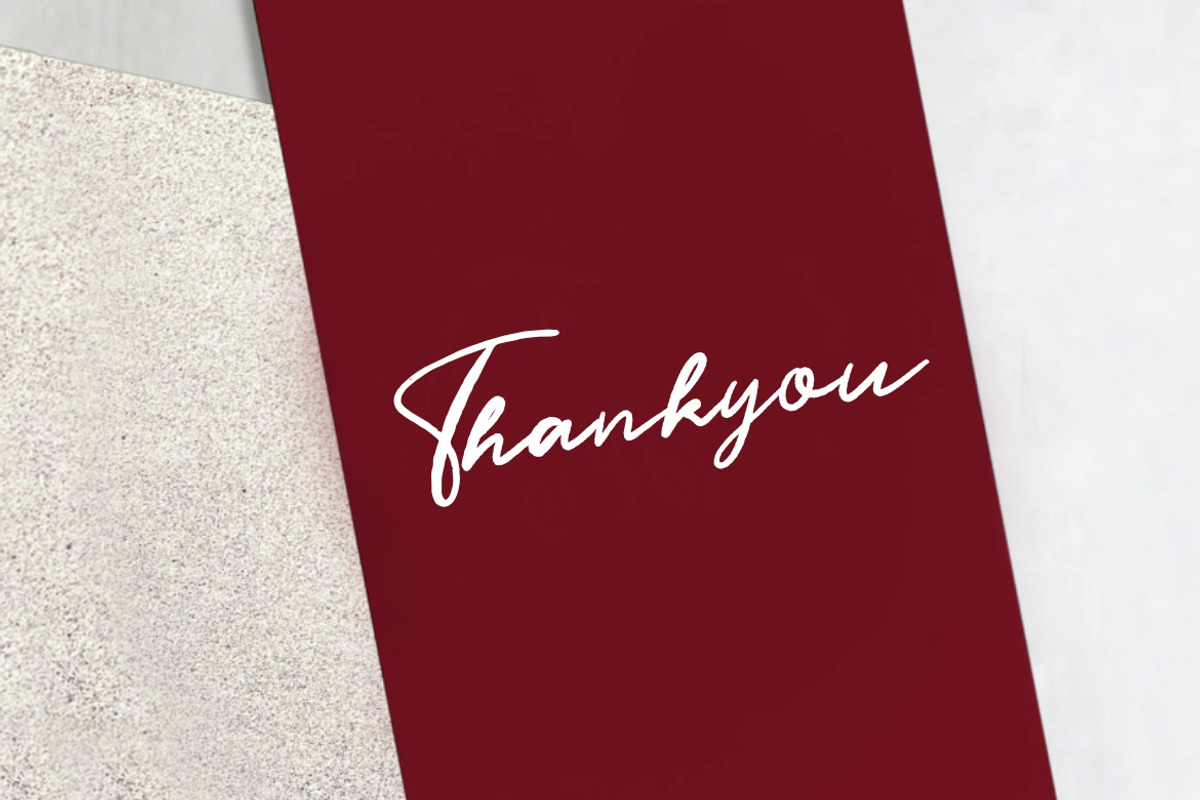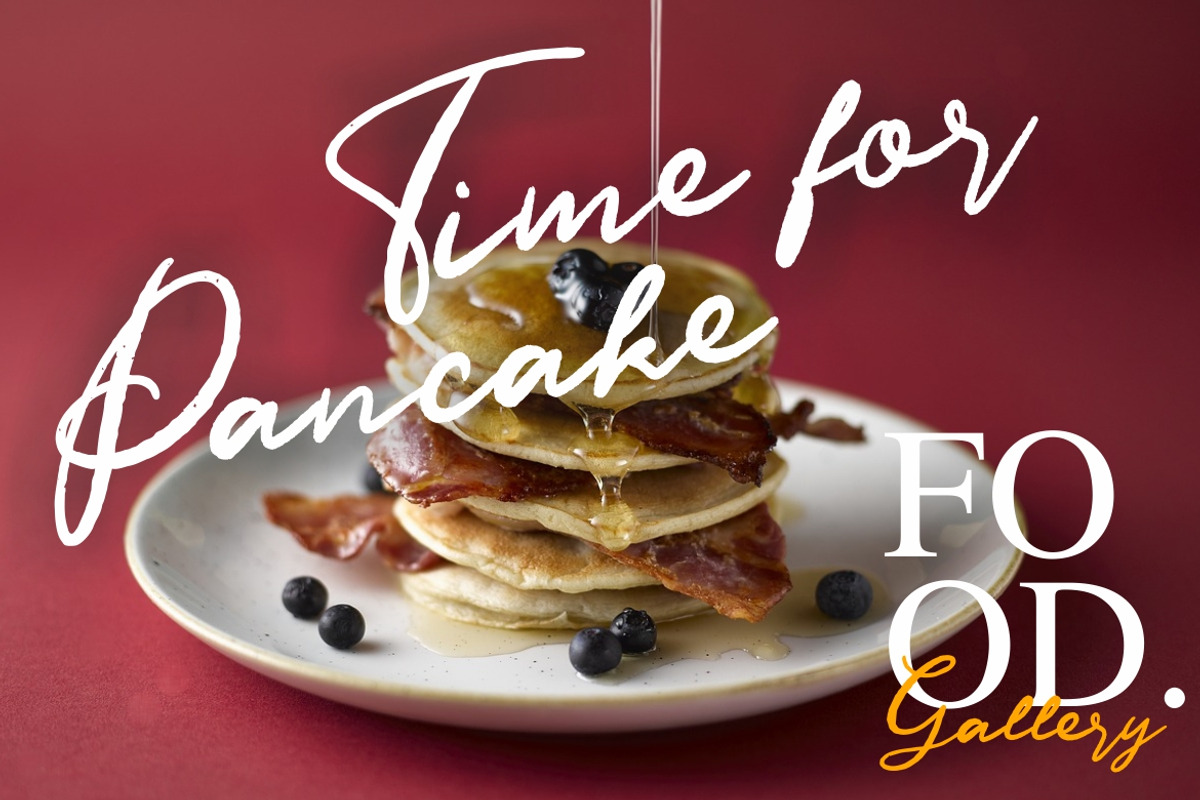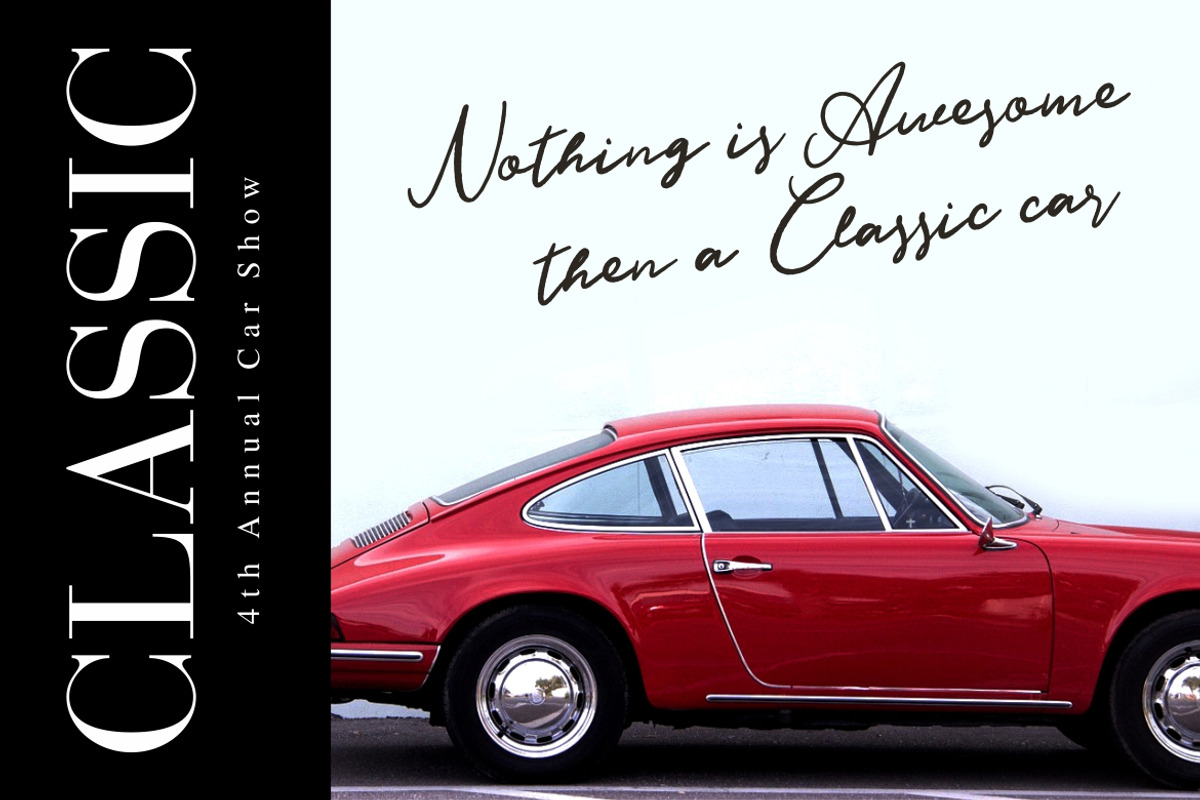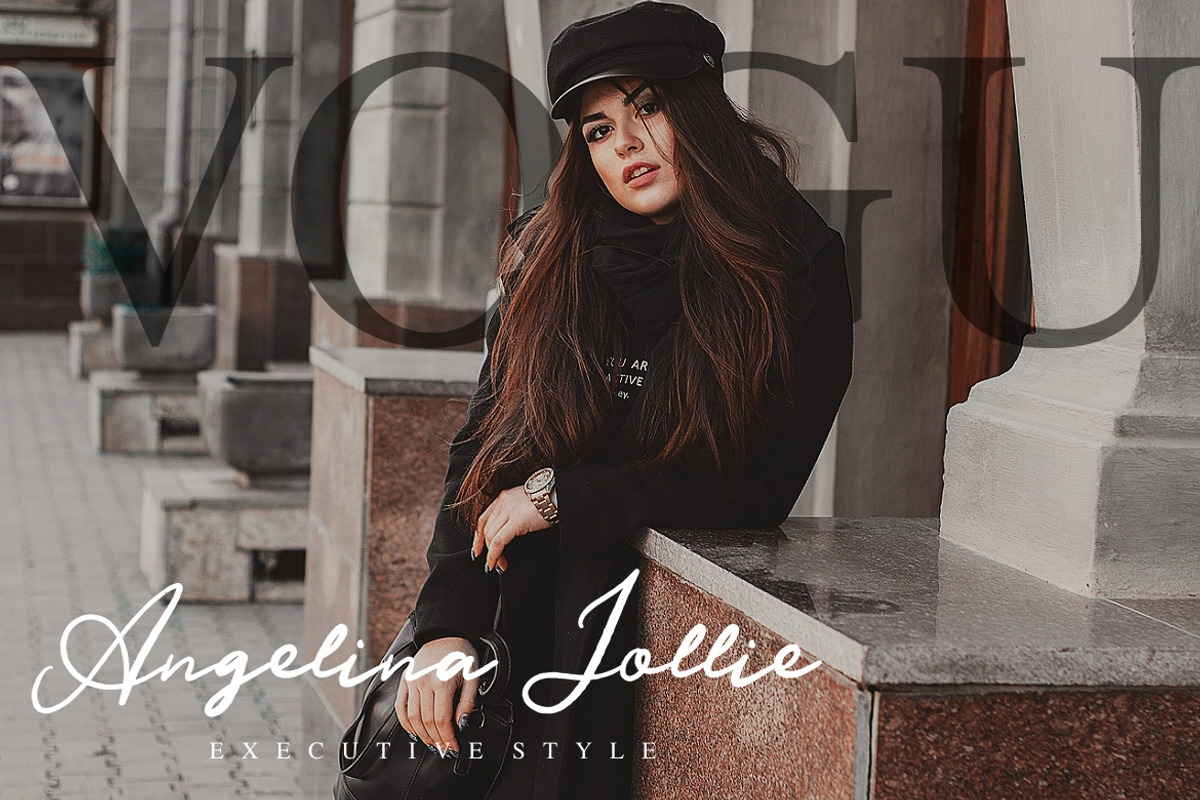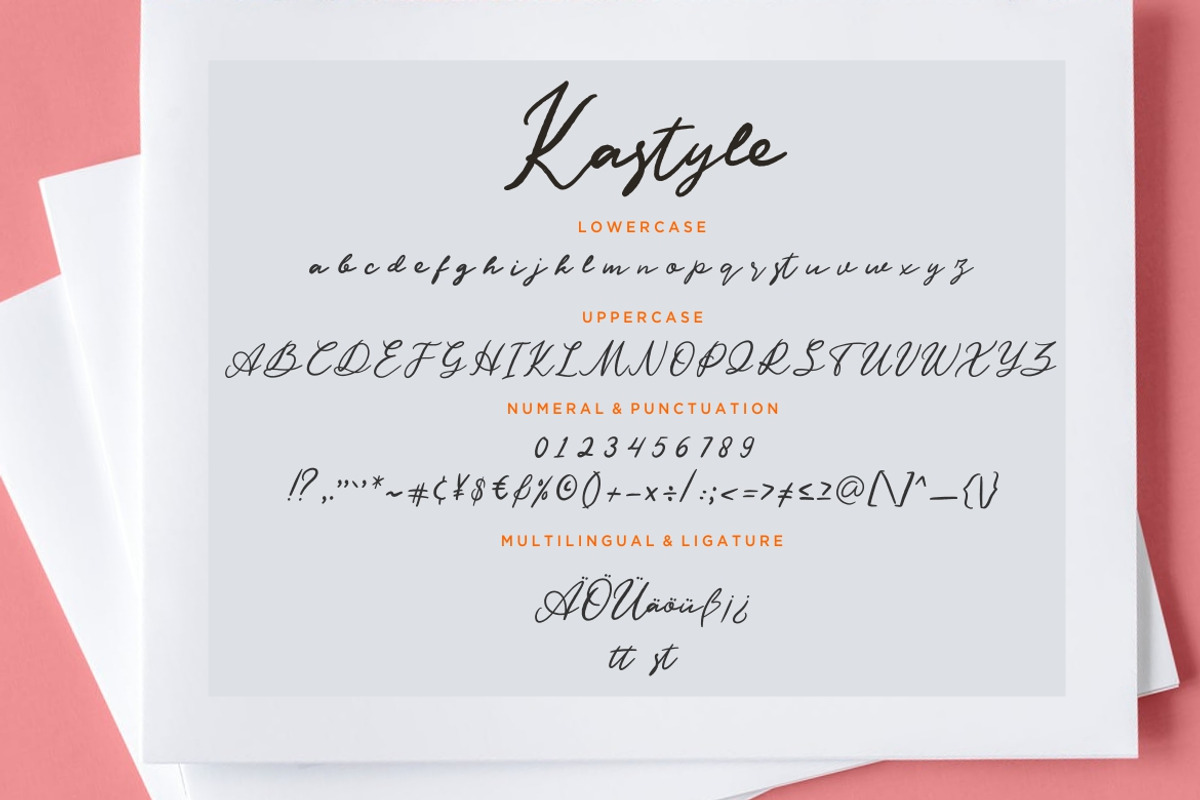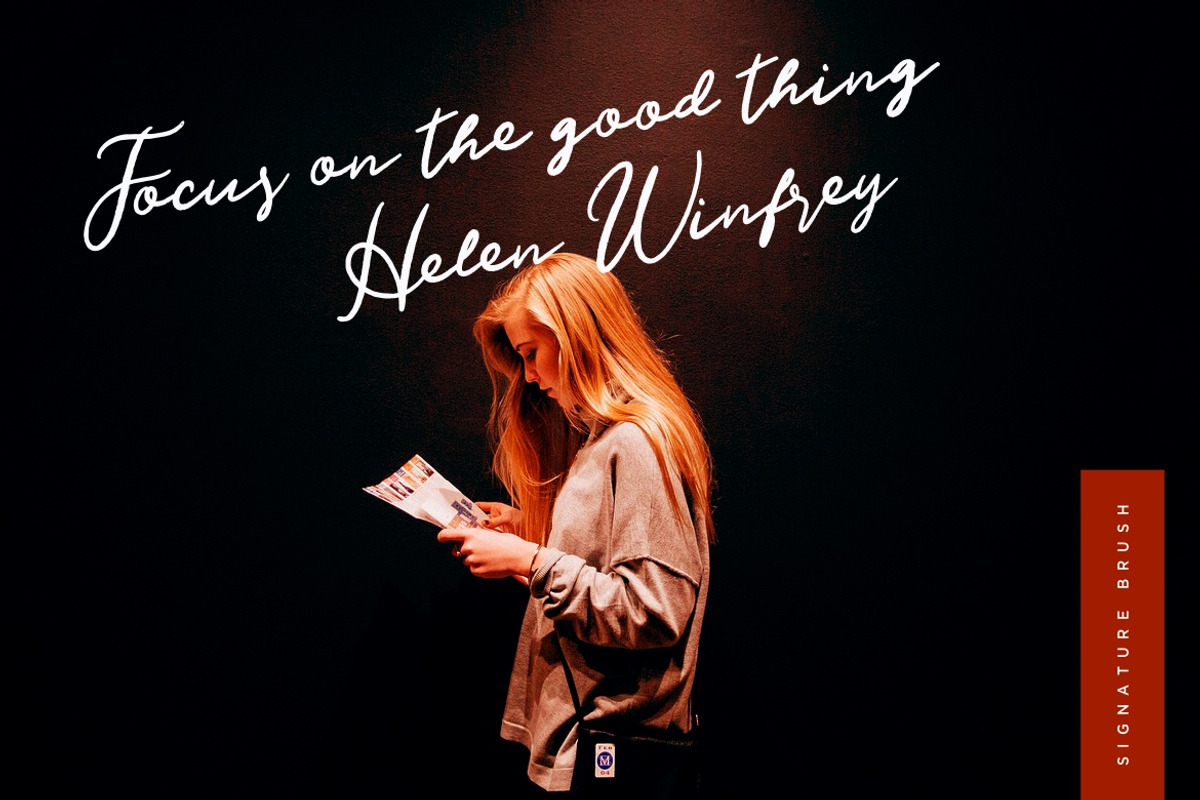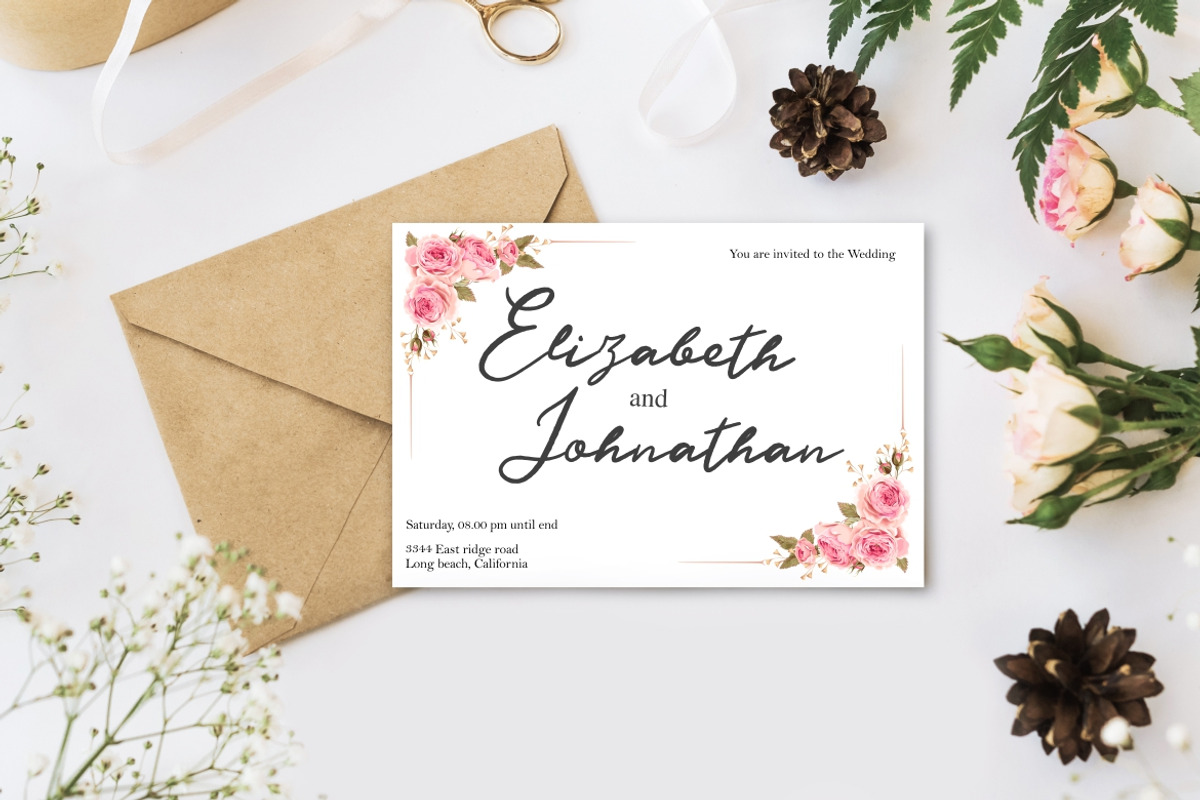
Kastyle Brush Business Font
Kastyle is signature script collection with brush touch make this font so awesome for your project.
Kastyle is perfect for branding projects, logo, wedding designs, social media posts, advertisements, product packaging, product designs, label, photography, watermark, invitation, stationery and any projects that need handwriting taste.
Kastyle Brush Business Font by Creatype Studio fits naturally into Branding, posters, packaging, typography.